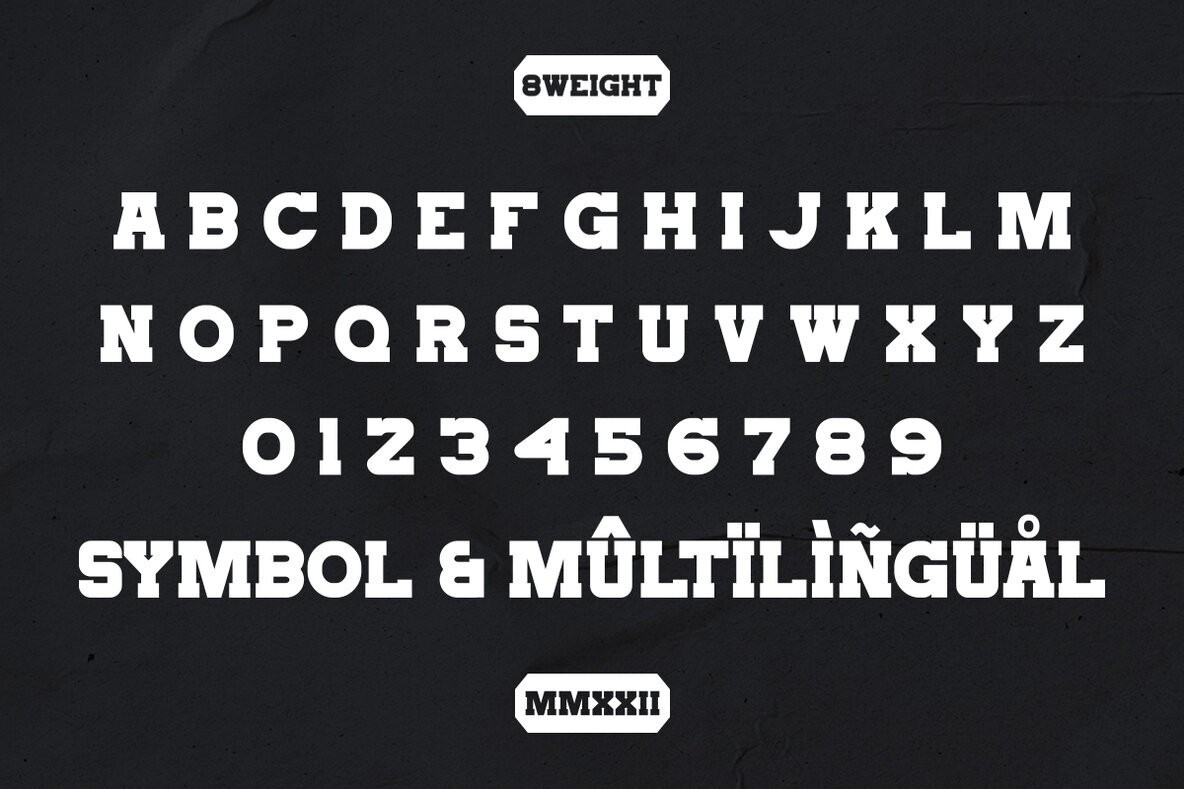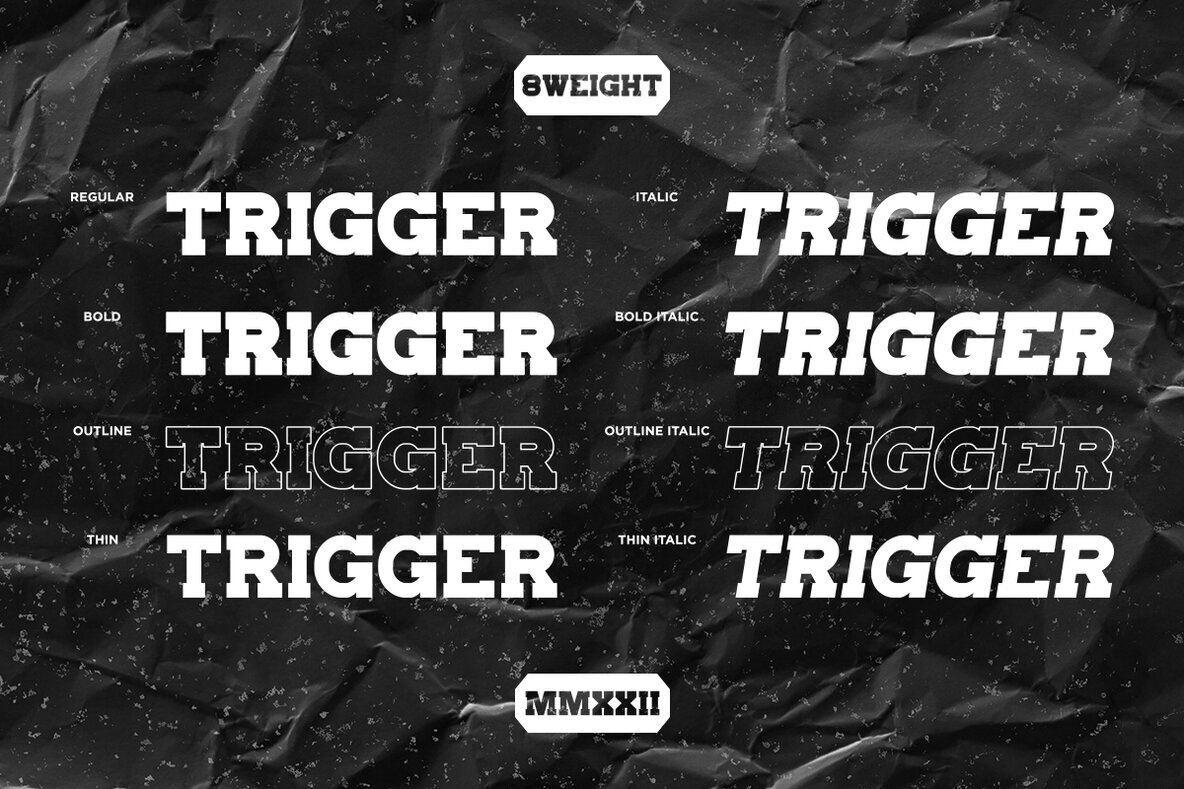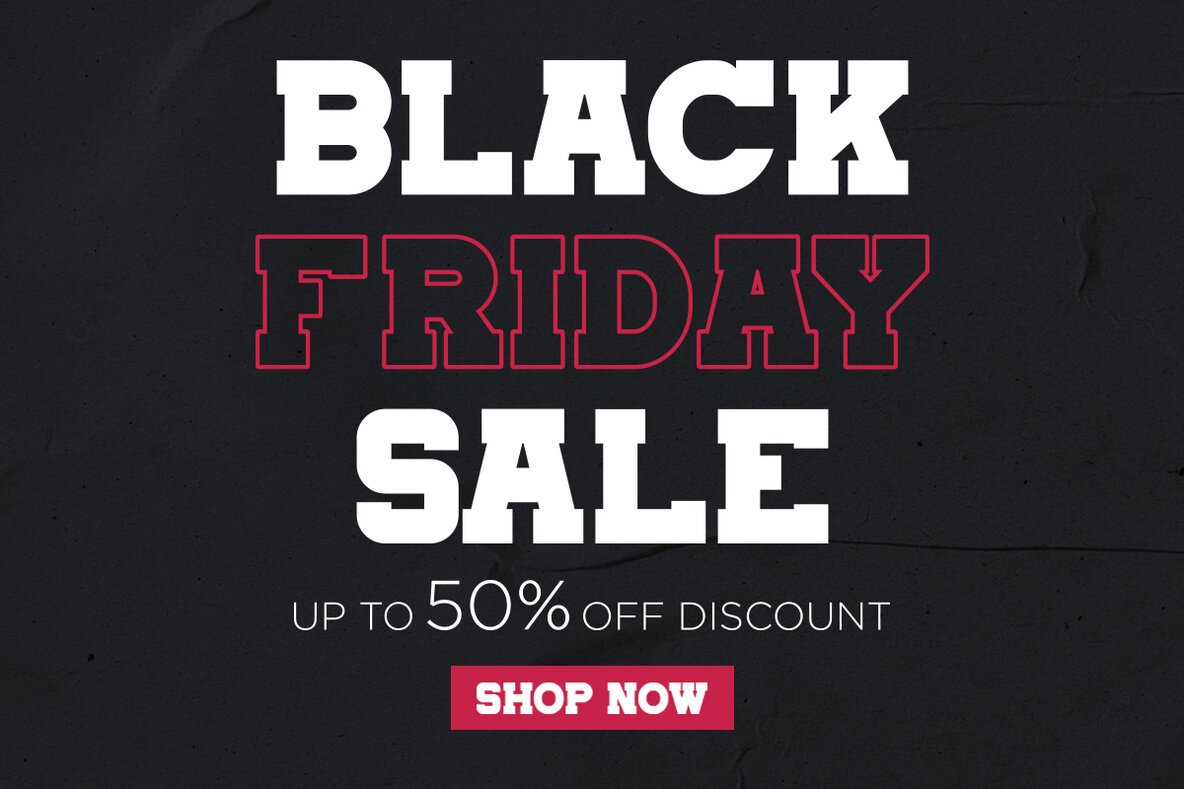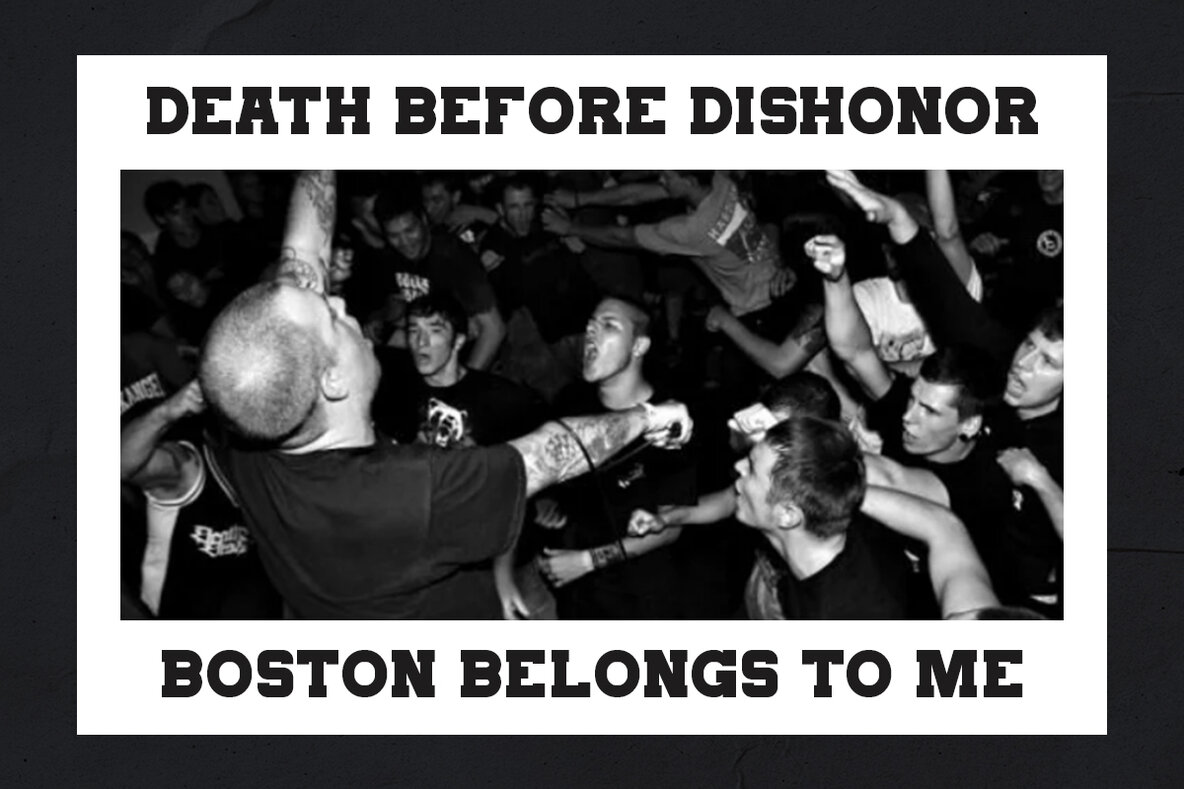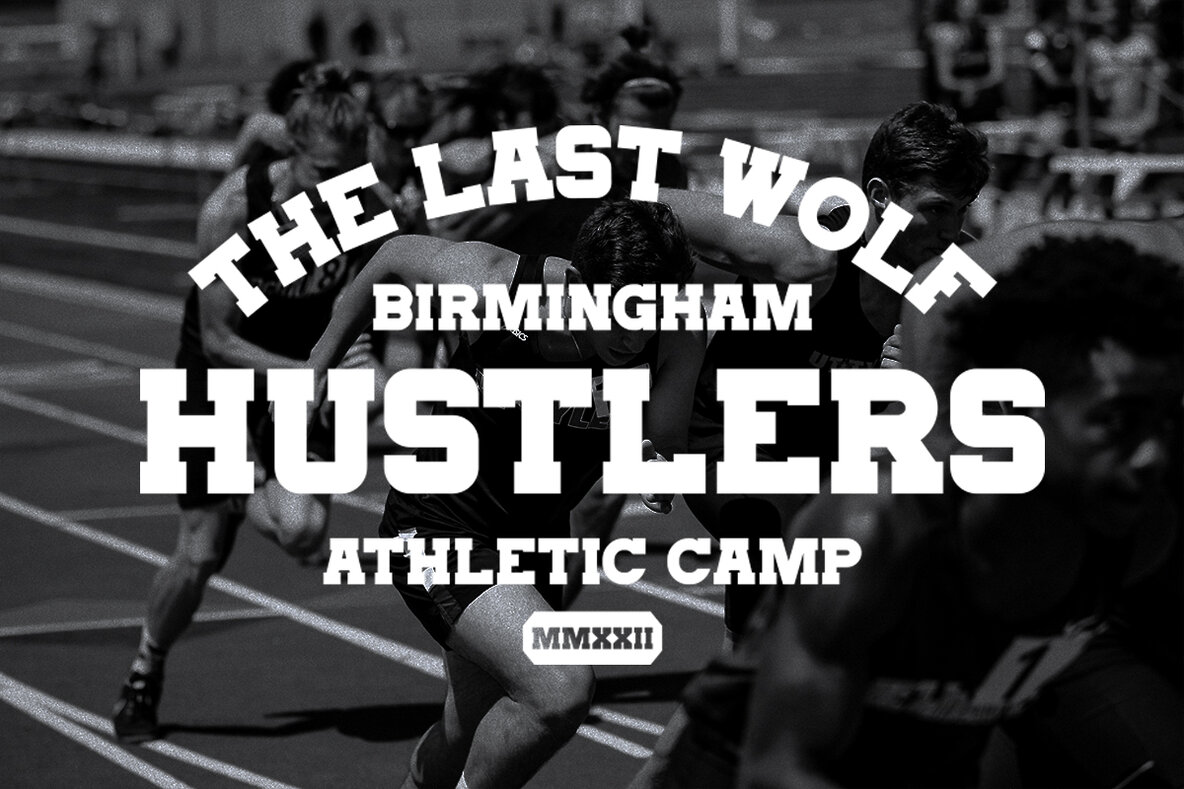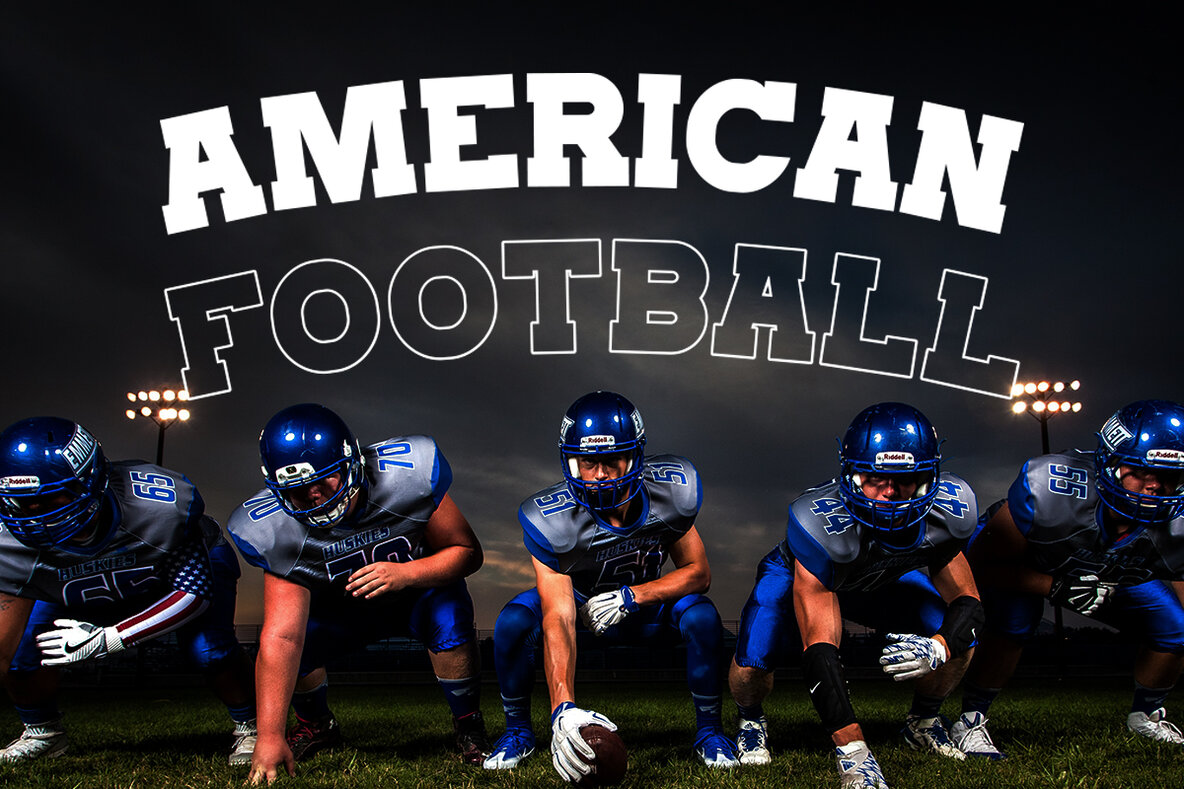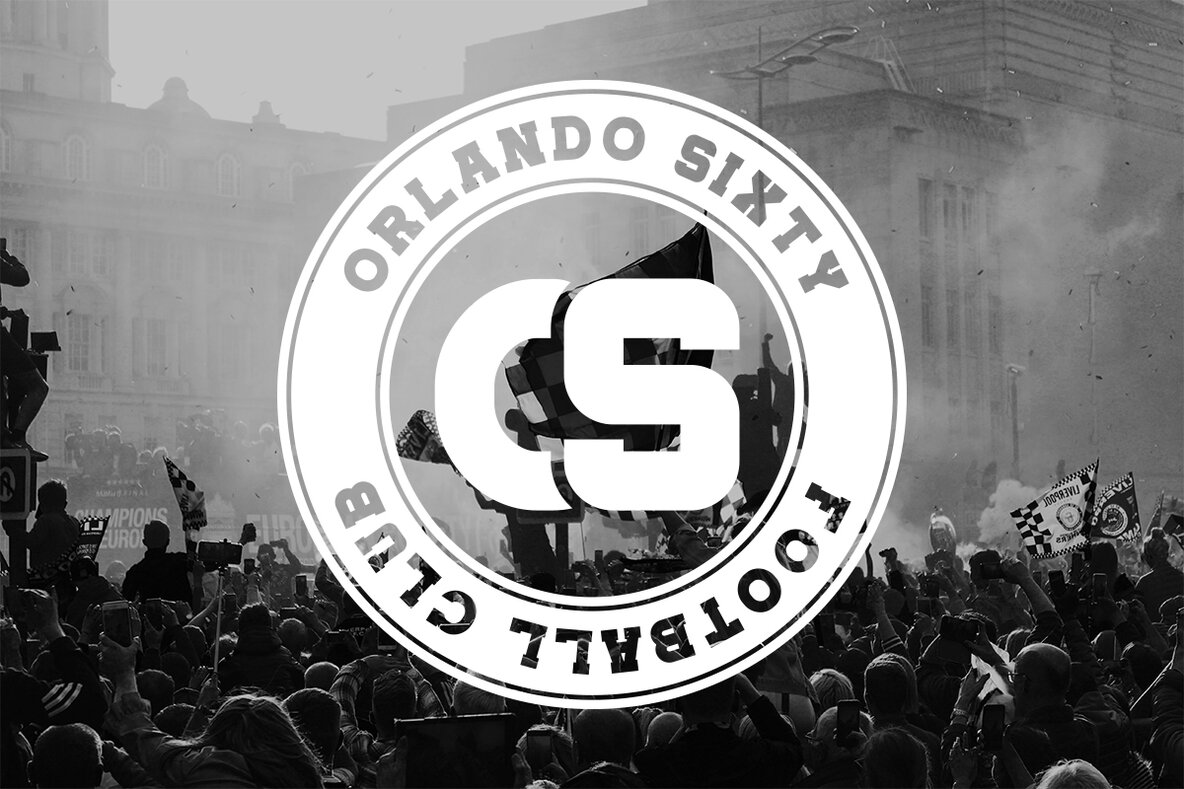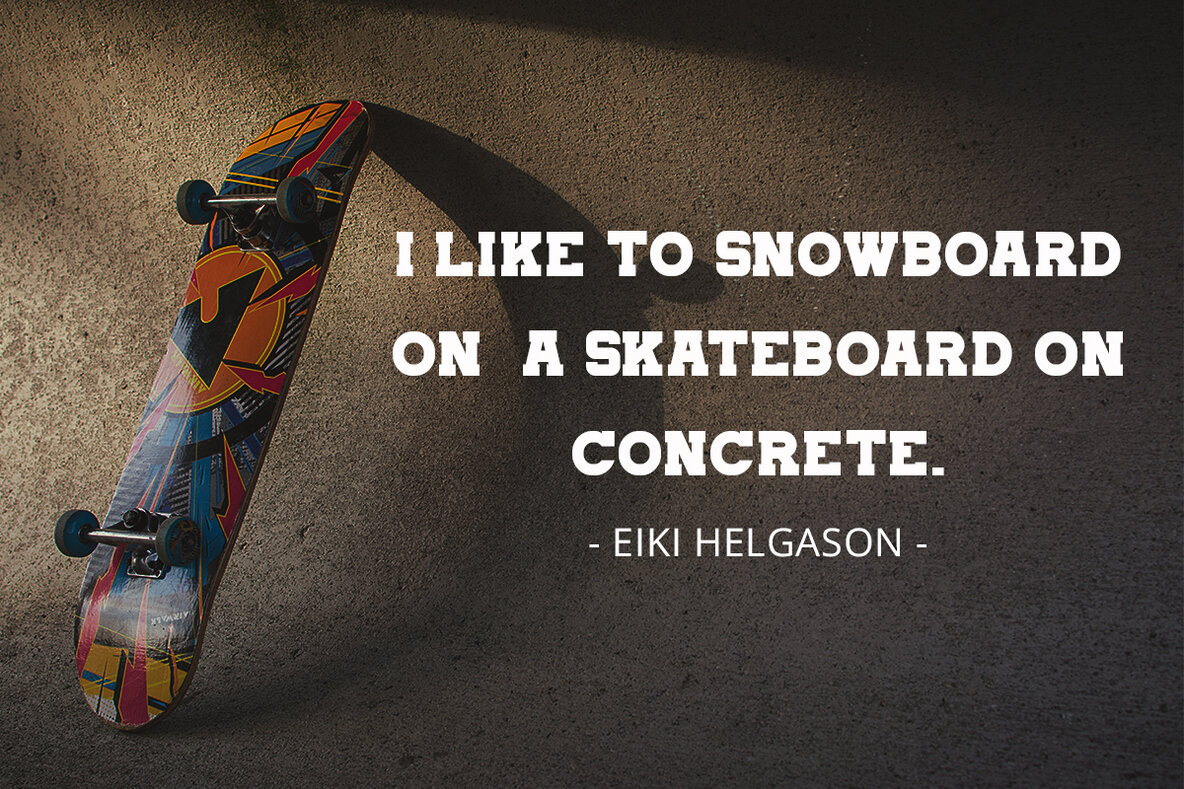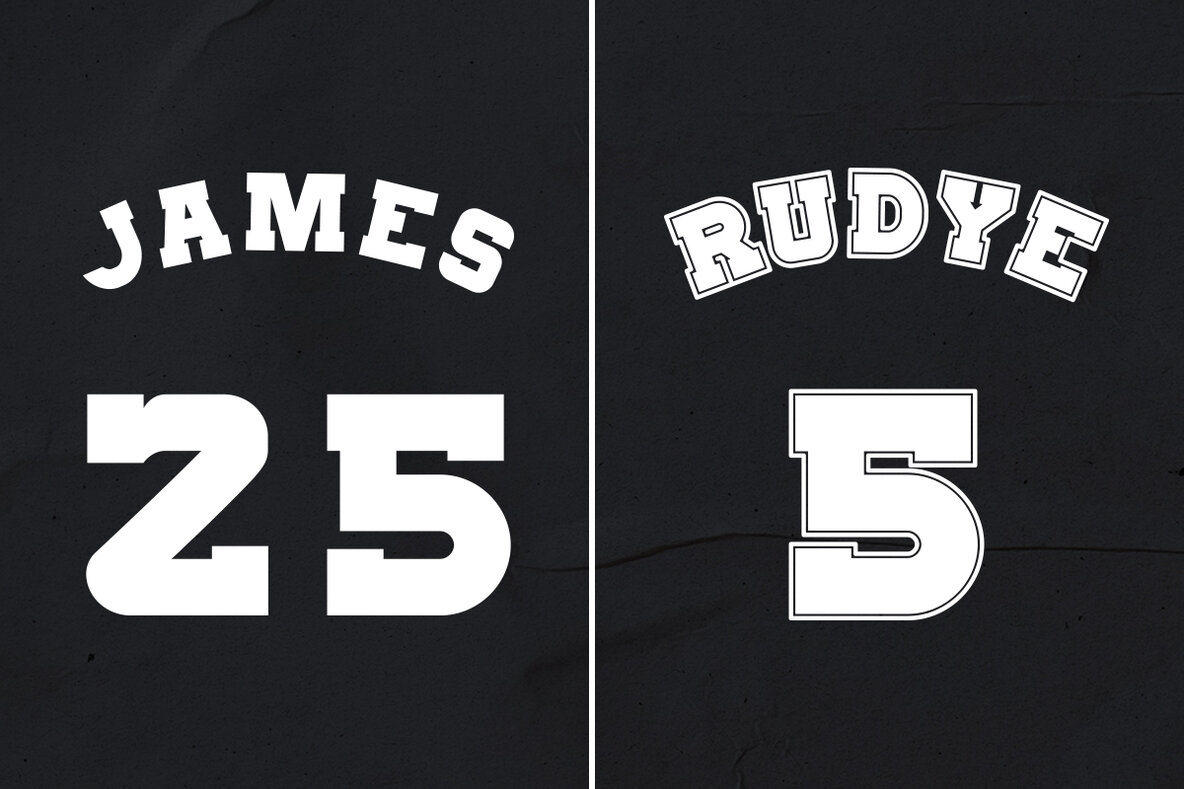
Trigger Font
Meet Trigger, a slab serif font inspired by the energetic world of sports and the timeless appeal of vintage typography. Crafted by Sohel Studio, this typeface artfully balances the old school with a modern minimalist touch, offering eight distinct styles to enhance various design endeavors. Trigger's strong foundation and bold visuals make it an ideal choice for athletic themes, from jerseys and posters to branding projects such as logos and product packaging. Whether designing for a sports team, clothing brand, or an edgy magazine, Trigger provides a versatile solution.Trigger: A Dynamic Slab Serif with Vintage Flair